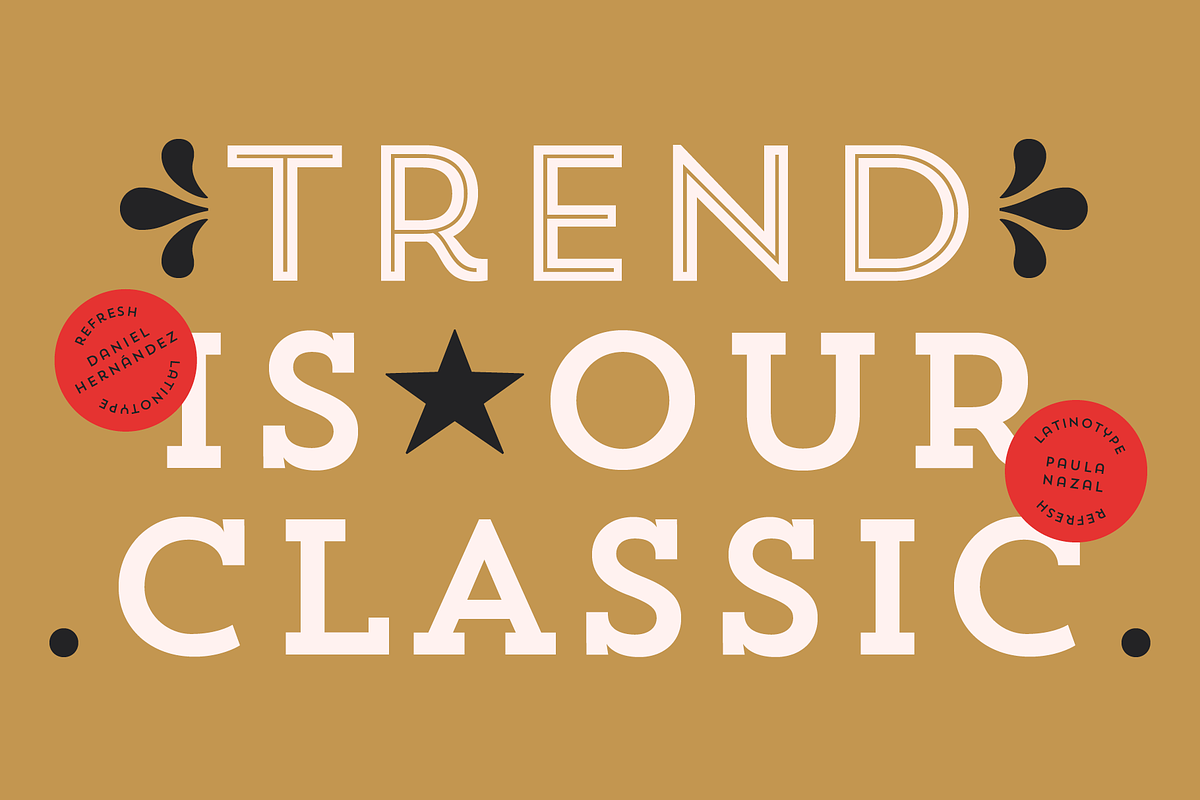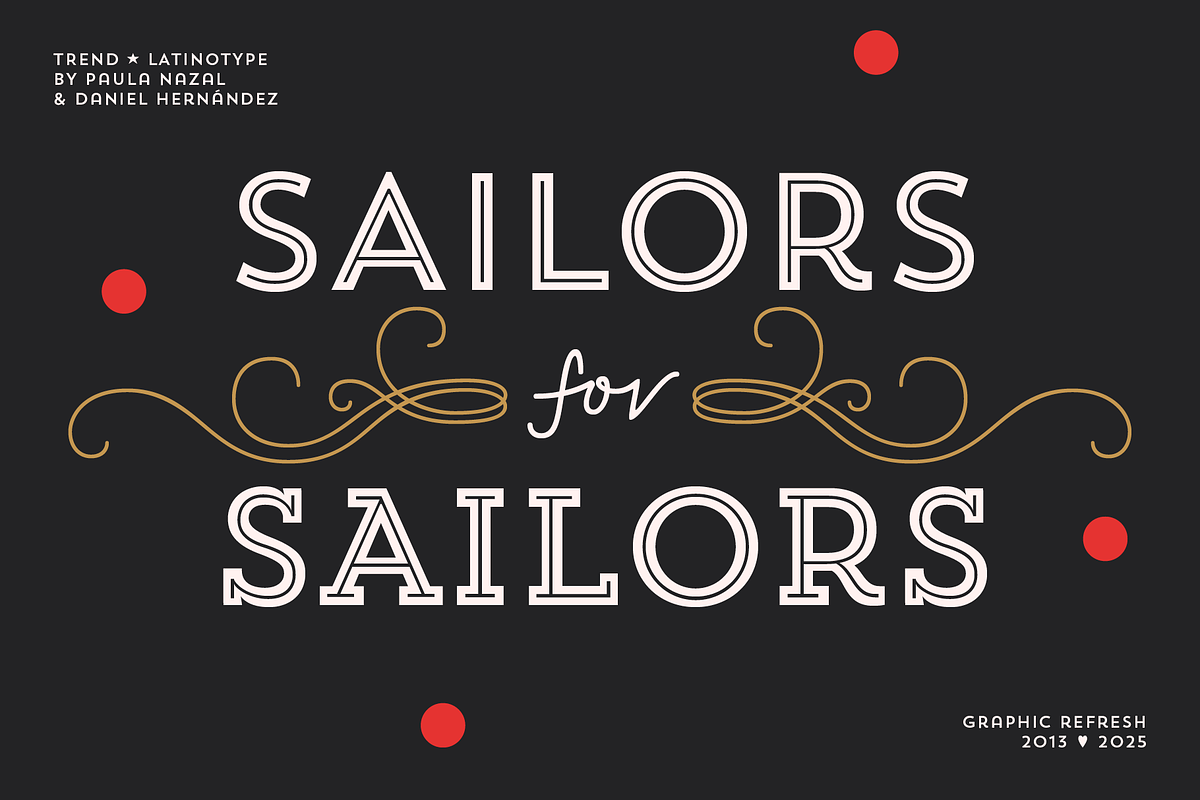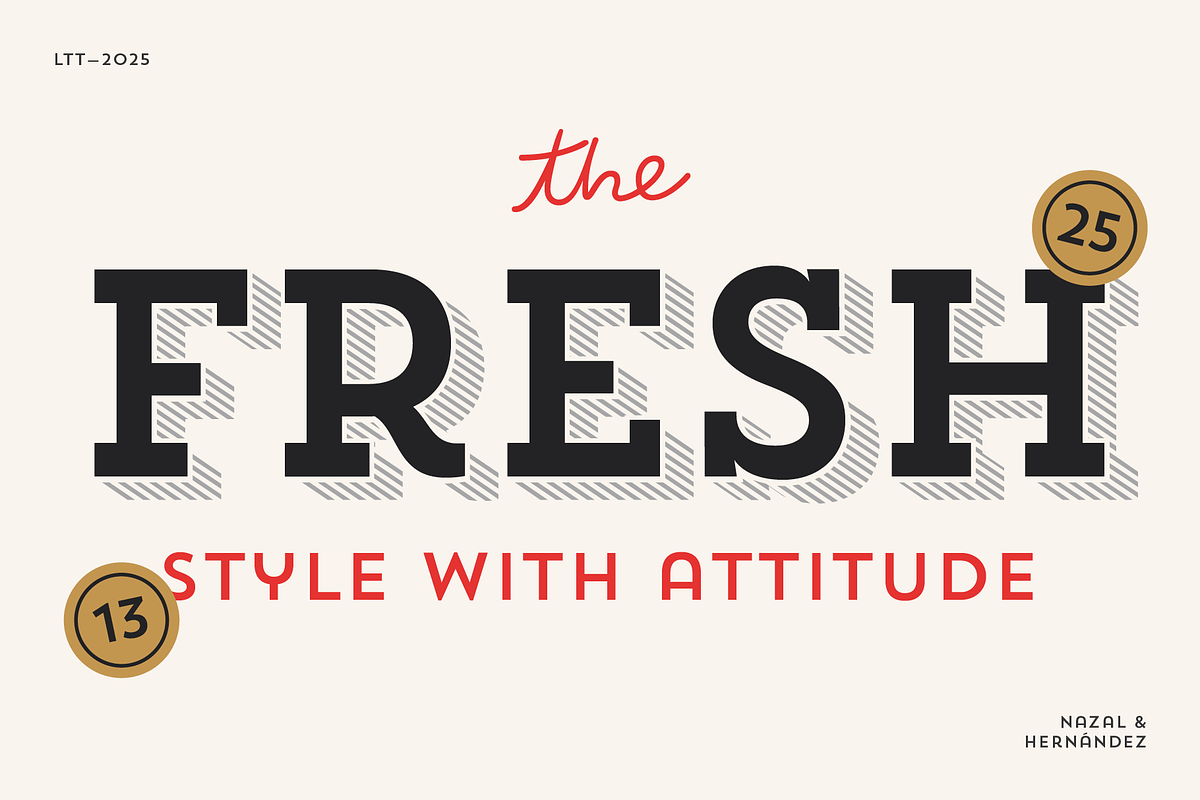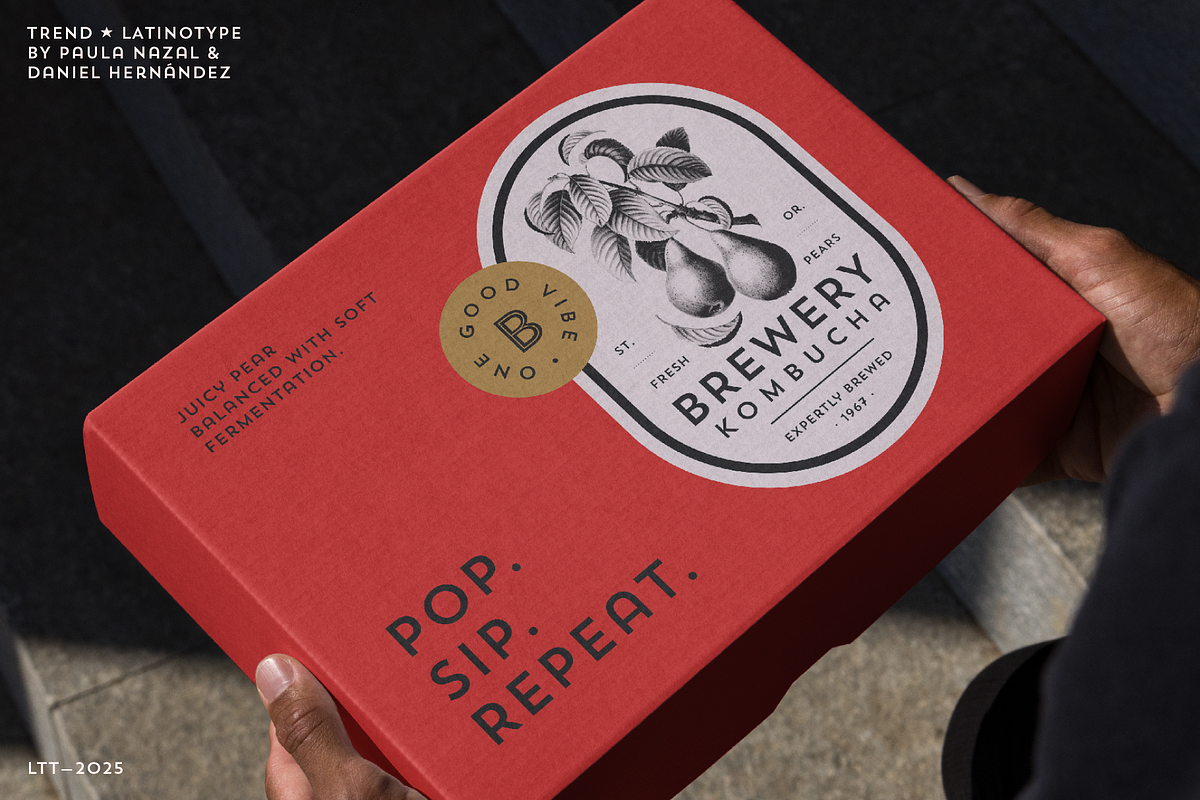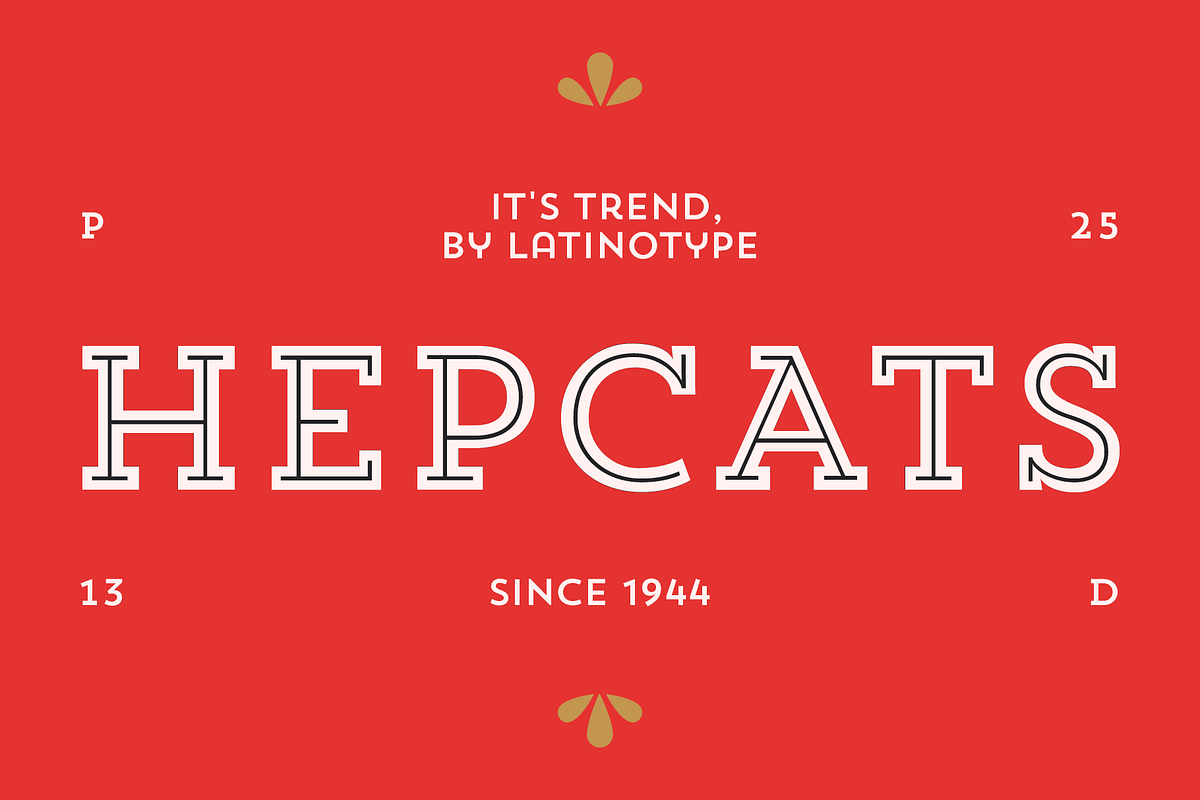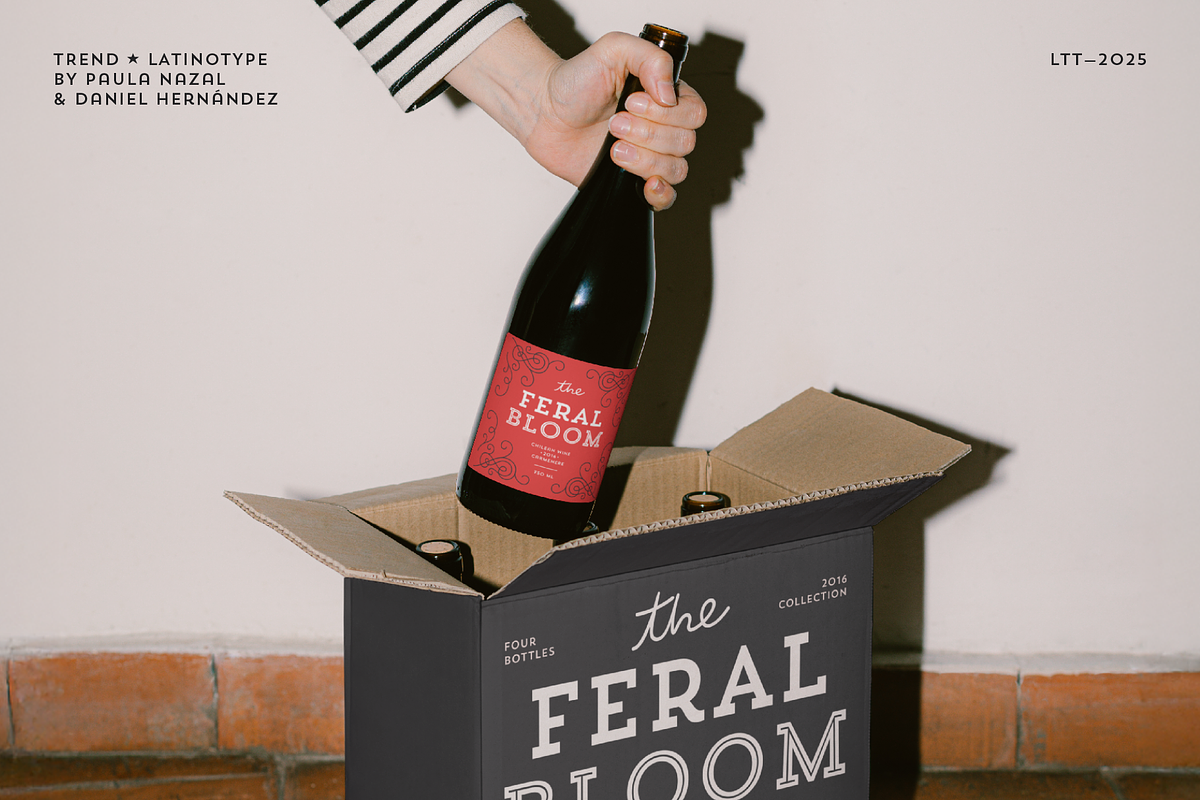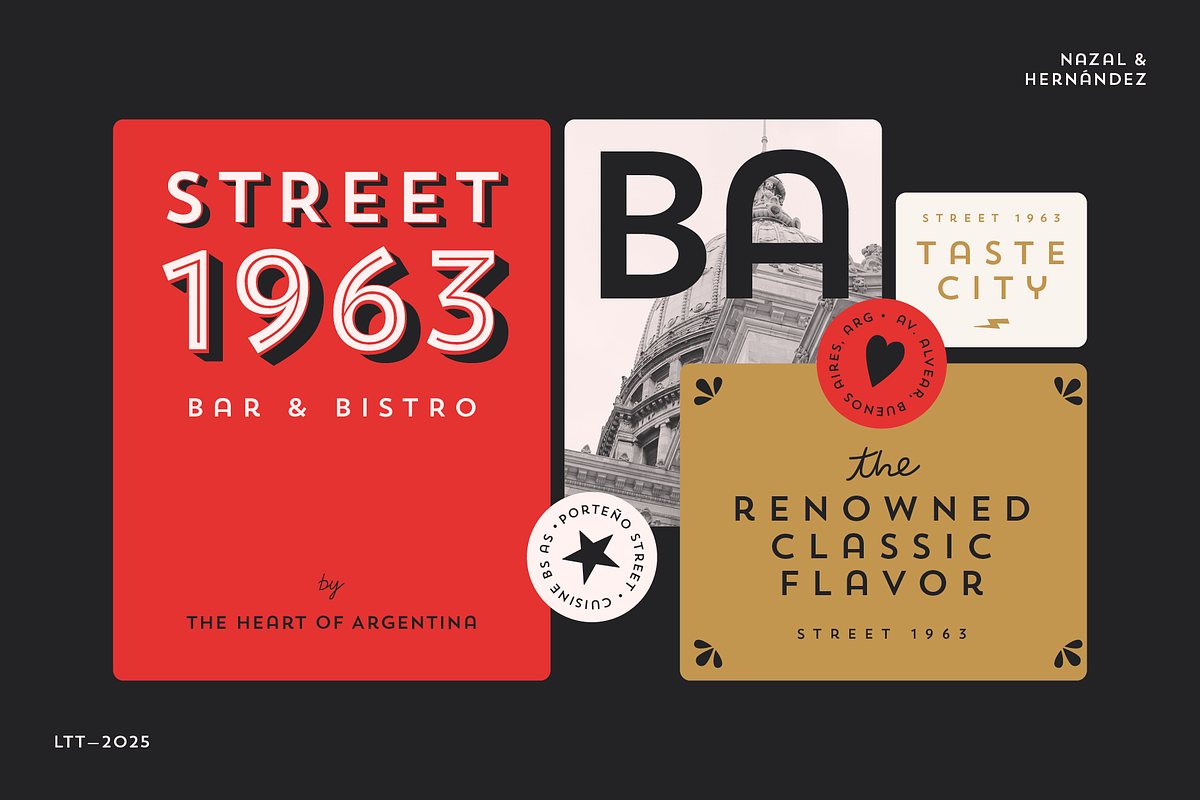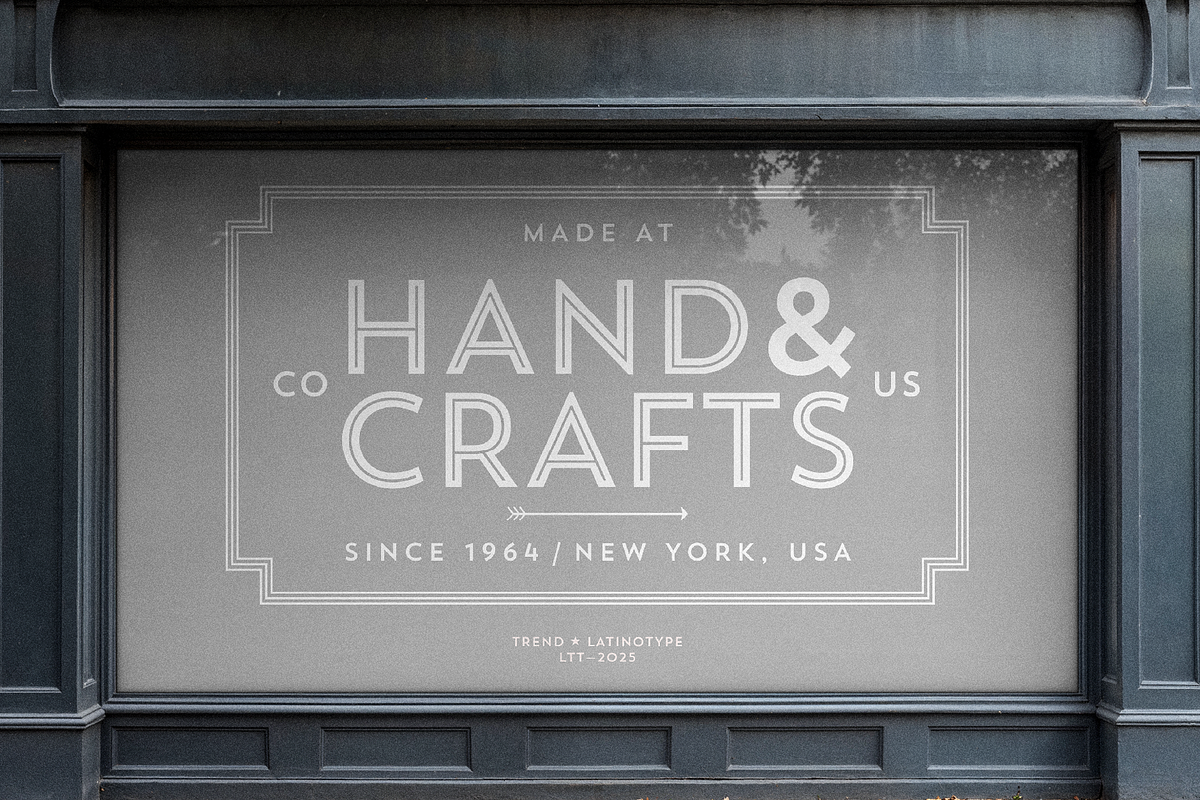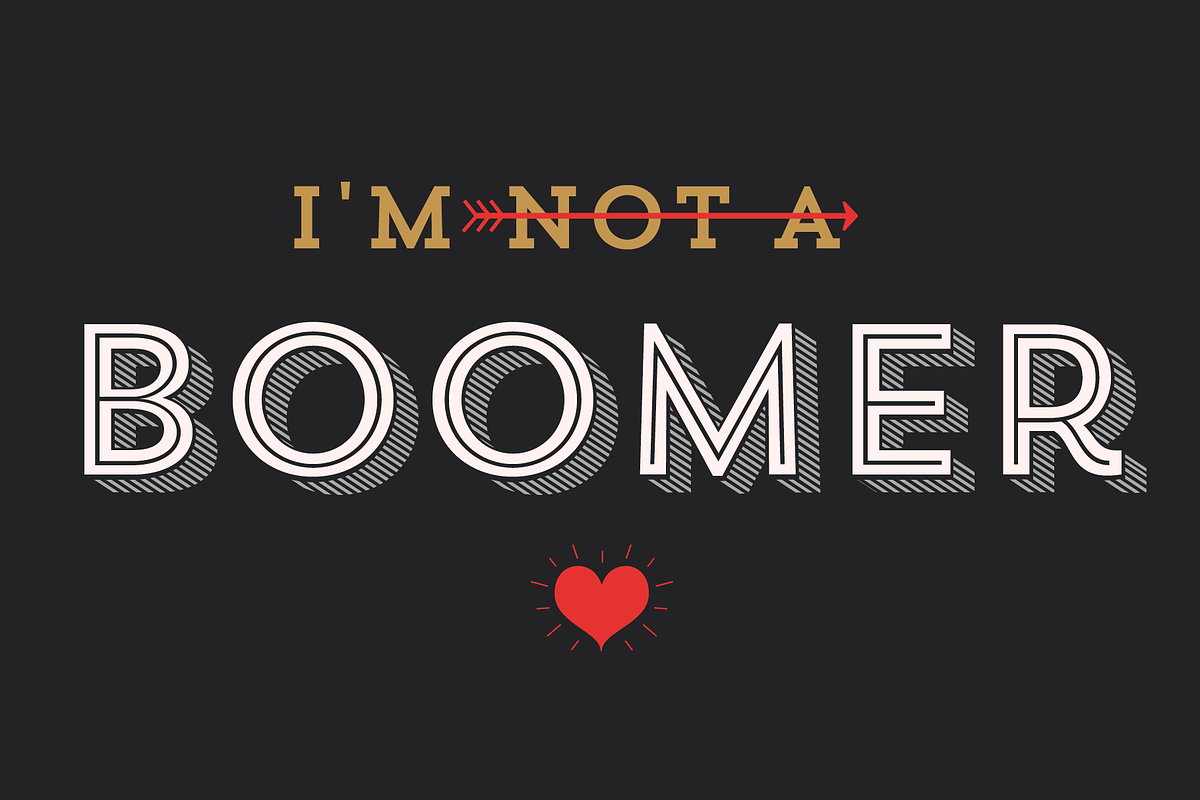
Trend
Trend & Trend Hand Made is a font made of layers, taking as a basis a sans and a slab font.
It is the result of observation, search and study of the last global trends. Trend tries to capture the aesthetics of fashion or even fashion itself, integrating elements of a very popular and current trend.
It is a typeface designed to be used without need to add anything external to it, because it has all components required for this. Trend is trending.